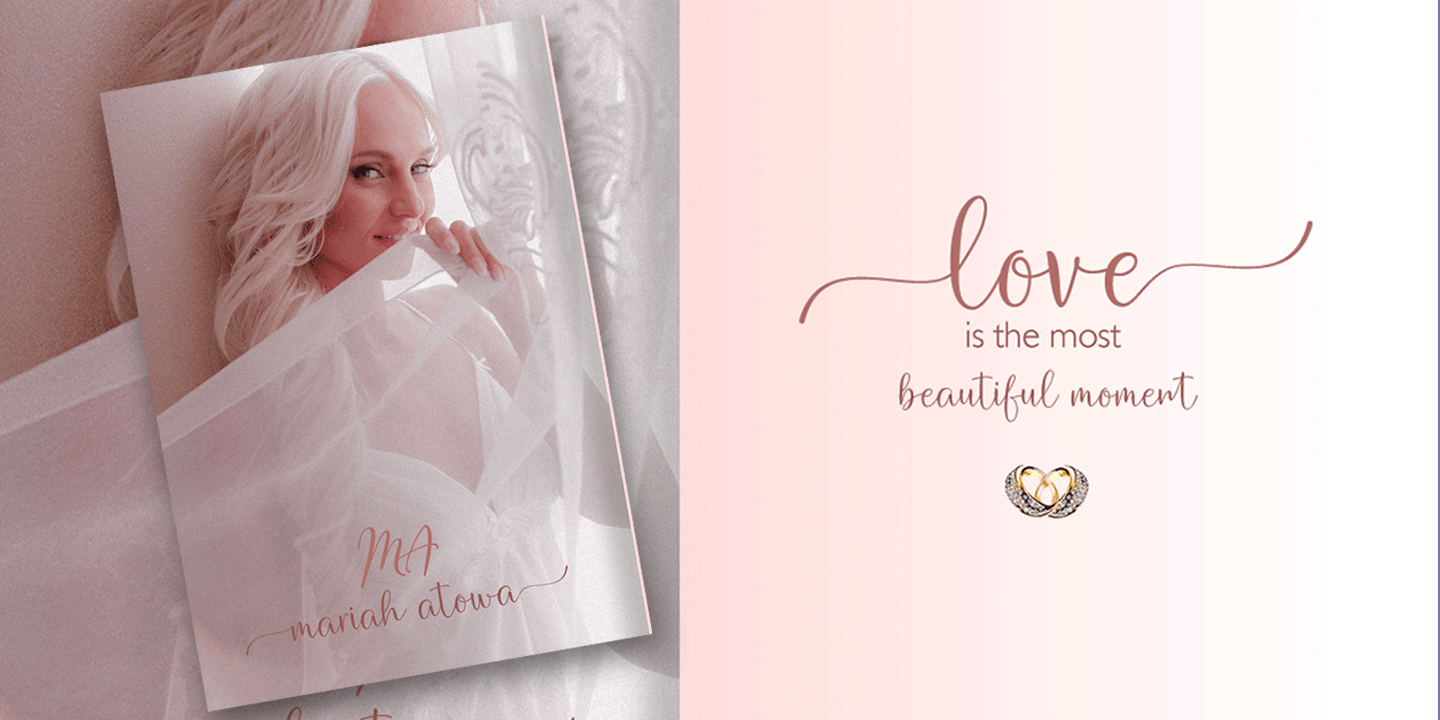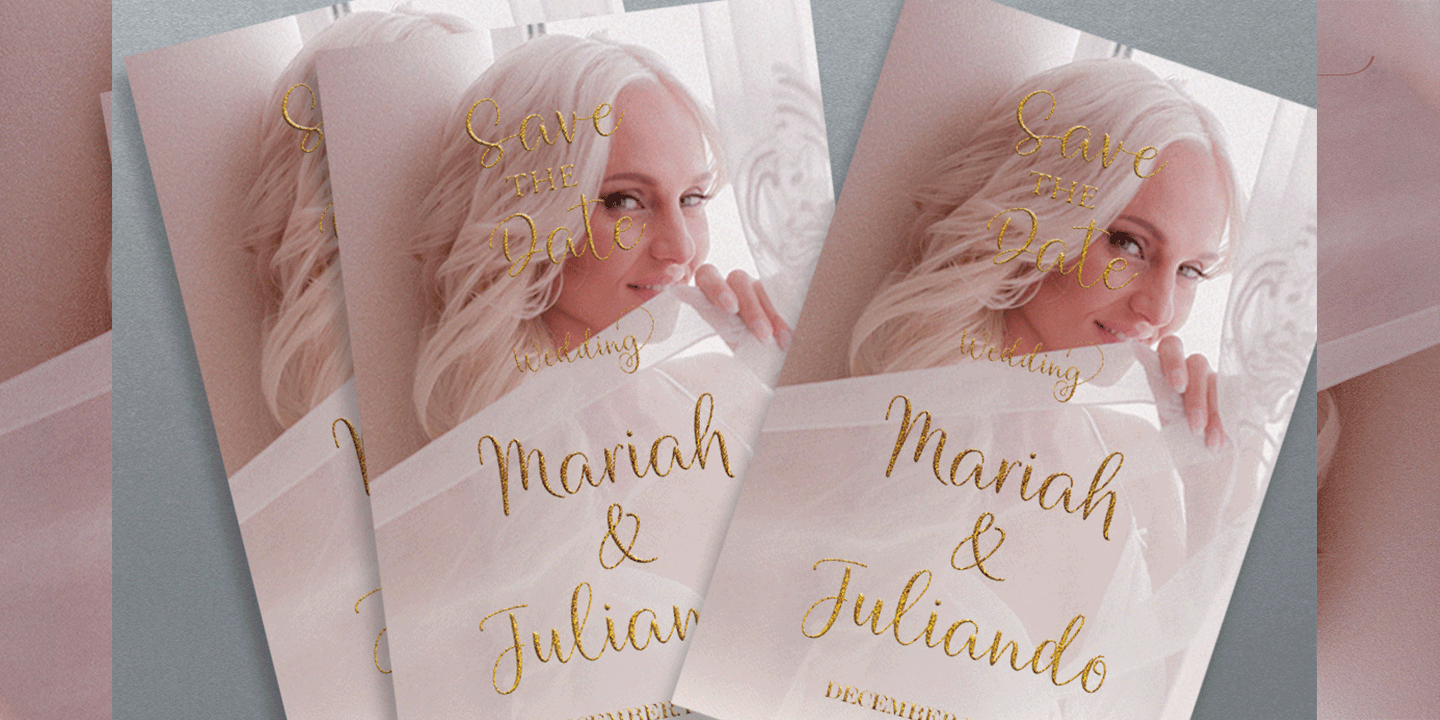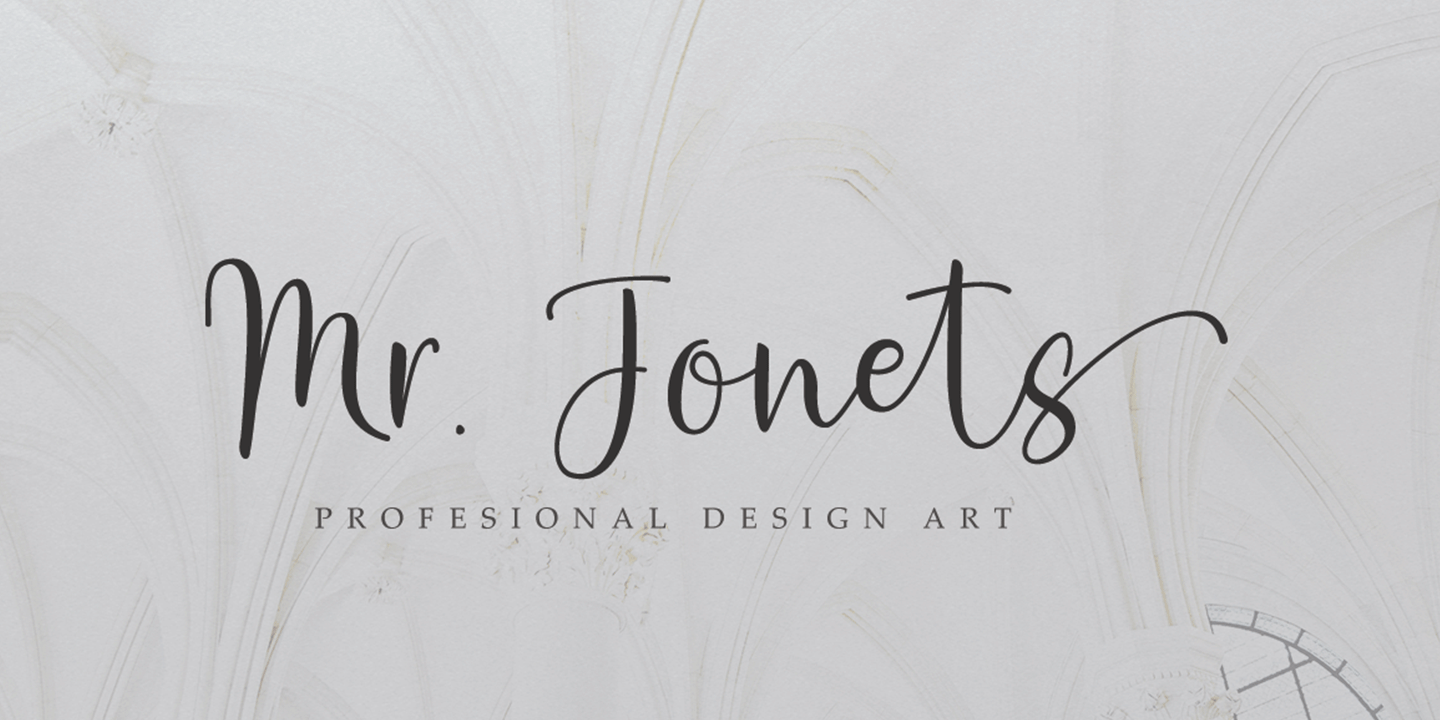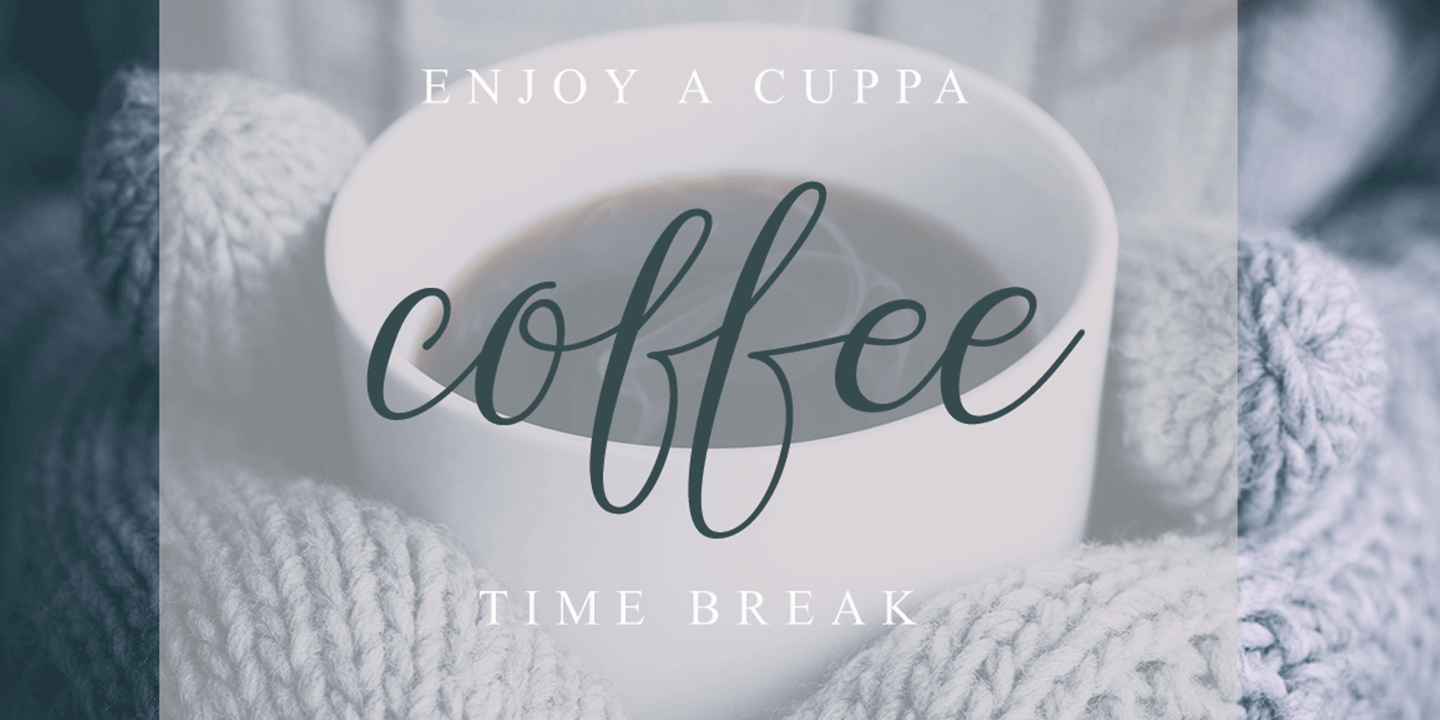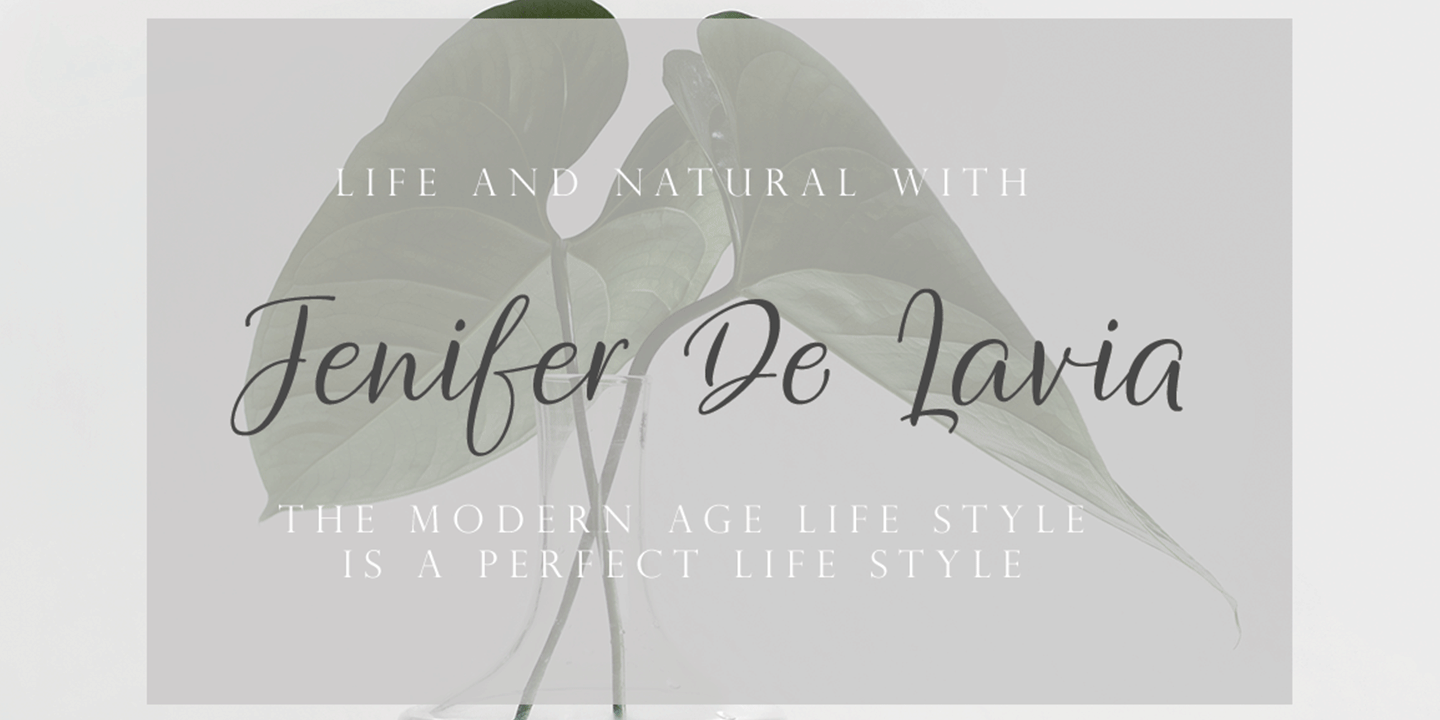
Heirley Script
Heirley Script, it is that the smooth fonts brush that has a different style. This is the perfect choice for personal branding project. Can be used for various purposes.such as headings, logos, wedding invitations, t-shirts, letterhead, lable, news, posters, badges etc. To enable the OpenType Stylistic alternates, you need a program that supports OpenType features such as Adobe Illustrator CS, Adobe Indesign and CorelDraw X6-X7.
The Features of this fonts is;
- Standart ligatures
- Stylistic Alternates
- Stylistic sets
- PUA Unicode (Private Use Areas)